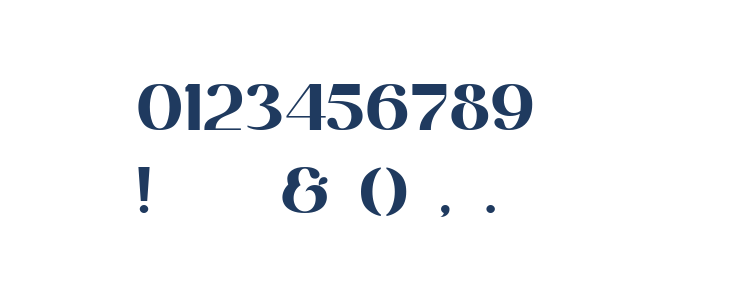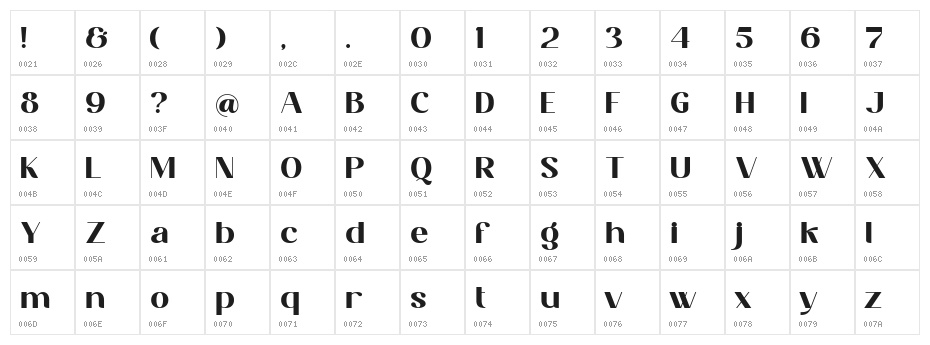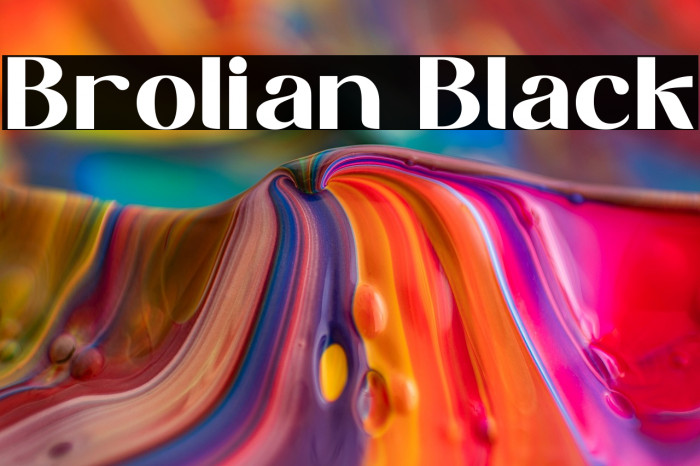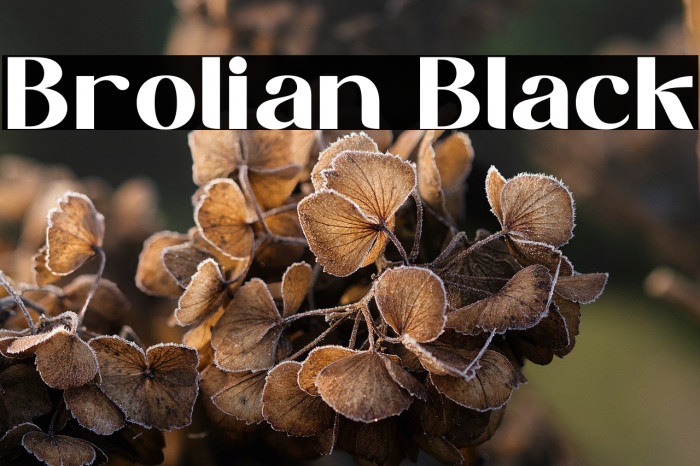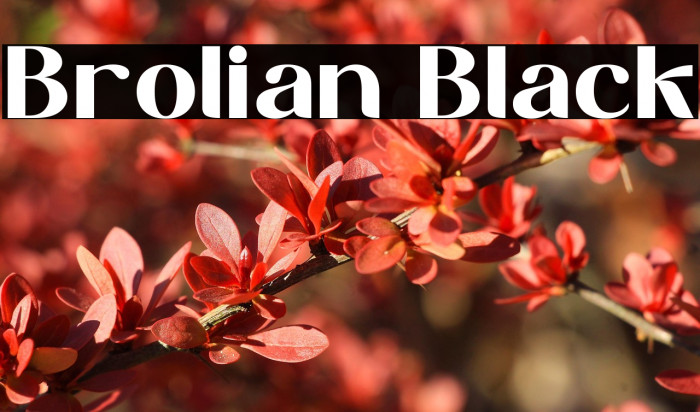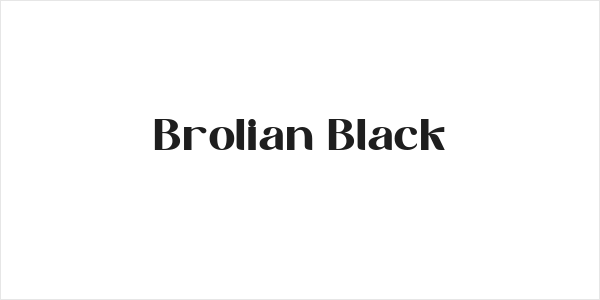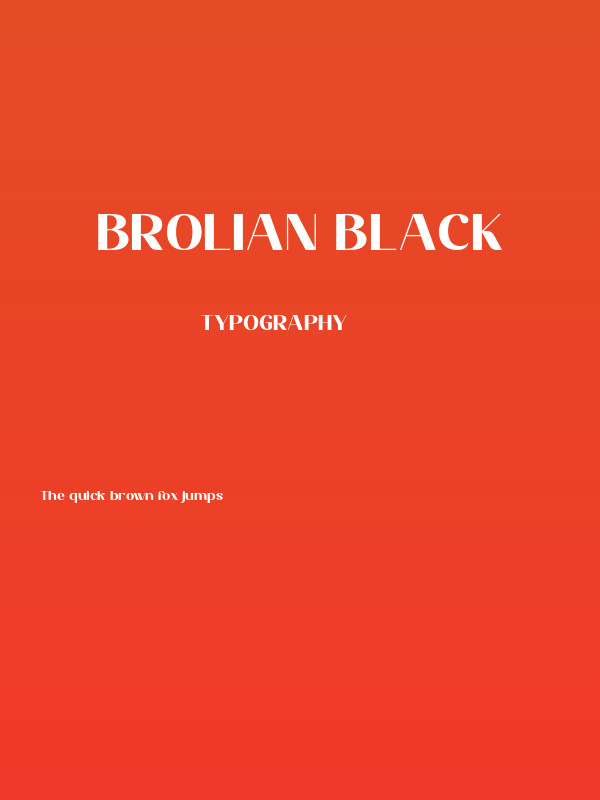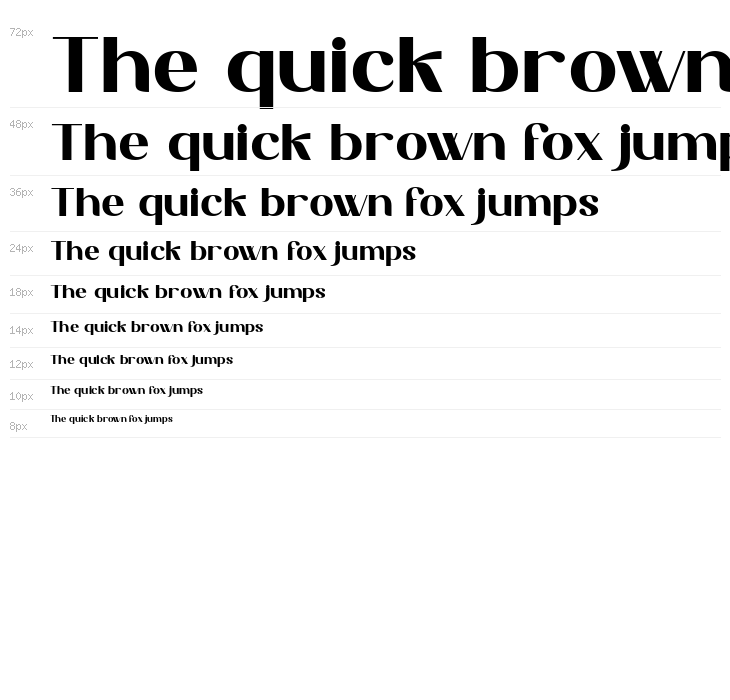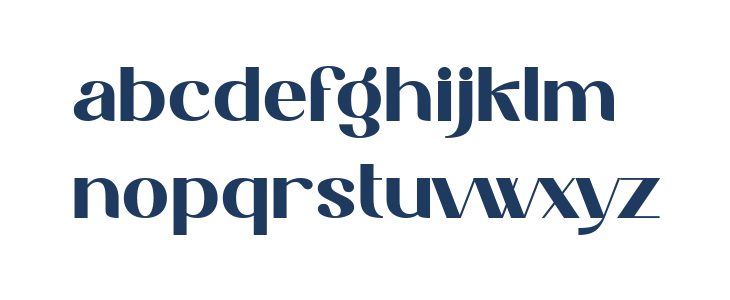
Brolian Black Font
Brolian Black Description
This font features a bold and striking design with high contrast between thick and thin strokes, giving it a dramatic and modern appearance. The uppercase letters are particularly distinctive, with sharp angles and a strong presence. The lowercase letters maintain a consistent style, offering a cohesive look across different text sizes. The numerals are equally bold, ensuring readability and impact. Special characters are well-integrated, maintaining the overall aesthetic. This font is ideal for making a statement in headlines or logos, where its boldness can be fully appreciated.
| Proposed Projects | Ideal for branding, advertising, and editorial design where impactful headlines are needed. |